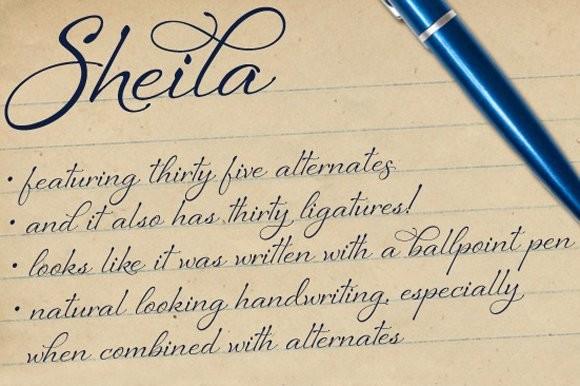
Sheila Family Font Description
Sheila strikes the perfect balance between casual handwriting and careful calligraphy, making it both approachable and aspirational. Put Sheila’s airy, breezy letterforms to use in friendly or feminine settings like inspirational quotes and fashion layouts. Contextual alternates and ligatures lend Sheila natural-looking connections; swash forms add flair.